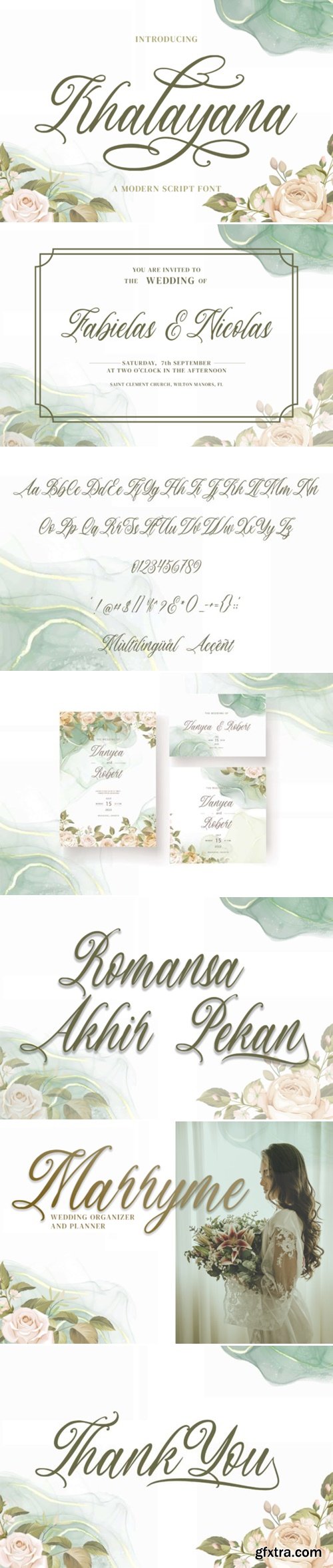
Khalayana Font
Khalayana is a beautiful and delicate handwritten font with a unique feel and a stunning impact. It will add a luxury spark to any design project that you wish to create! Add it confidently to your projects, and you will love the results.
First Reign is a decorative medieval typeface. With borders and ornaments, this swirly uppercase typeface of extreme variability brings us to glorious worlds in the golden times of epic knight sagas. First Reign is the typeface of a Royal House, of vikings, kings and queens. Use it for a Middle Ages game, a fantasy headline, or as a logotype for anything of historical theme. With usage in any modern software, the letters will automatically overlap and embrace in an elegant way.